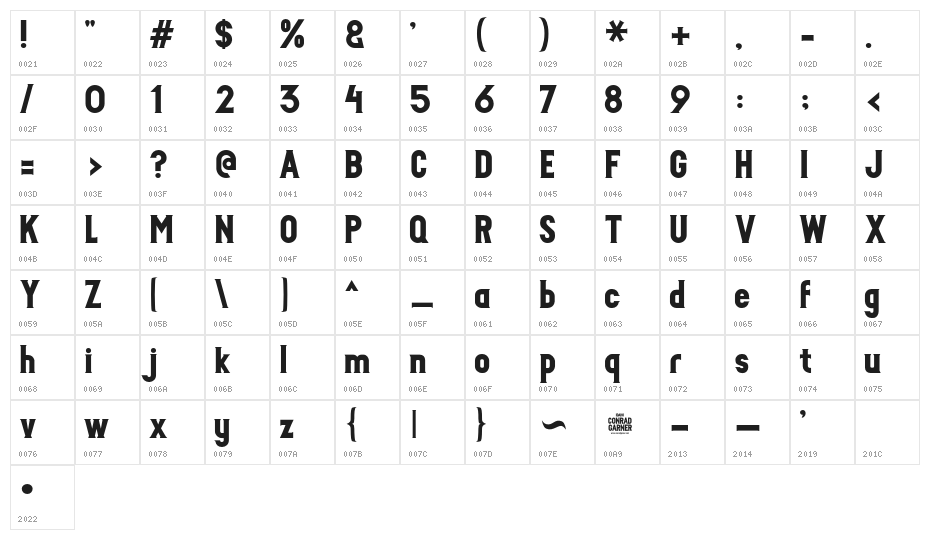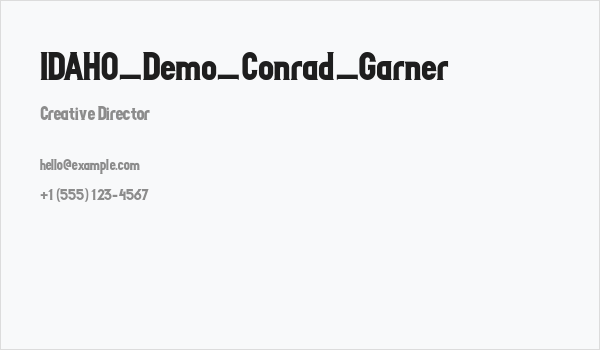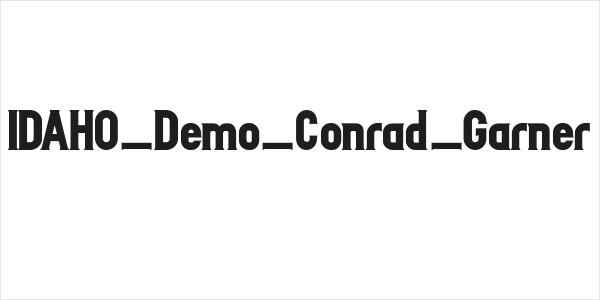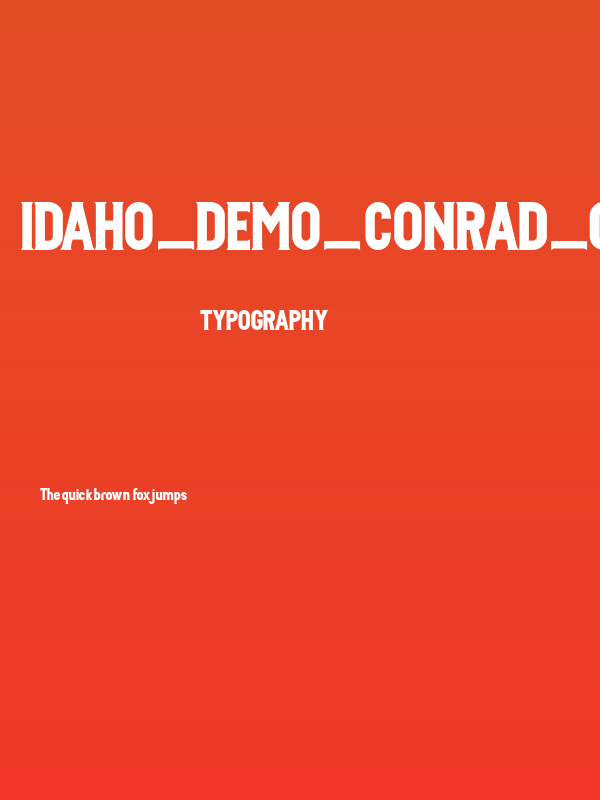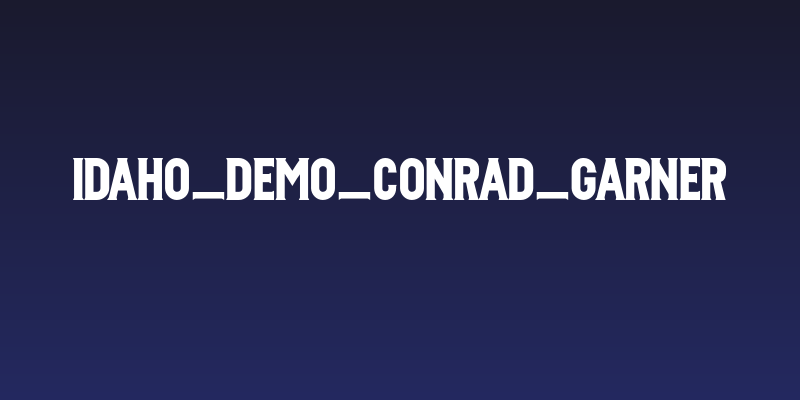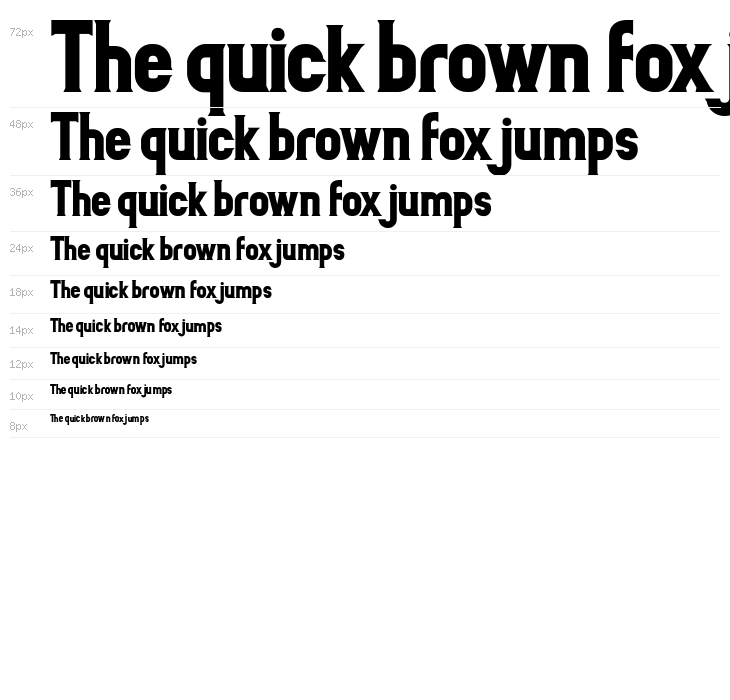
IDAHO_Demo_Conrad_Garner Font
IDAHO_Demo_Conrad_Garner Description
This font exhibits a bold, impactful style with strong geometric shapes and a modern aesthetic. The uppercase letters are tall and commanding, while the lowercase letters maintain a consistent width, providing a cohesive look. The numbers are equally bold, ensuring readability and uniformity across different uses. Special characters are designed with the same attention to detail, making them stand out without overpowering the text. The font's overall design is clean and versatile, suitable for a variety of applications.
| Proposed Projects | Ideal for branding, posters, headlines, and any project requiring a strong visual impact. |